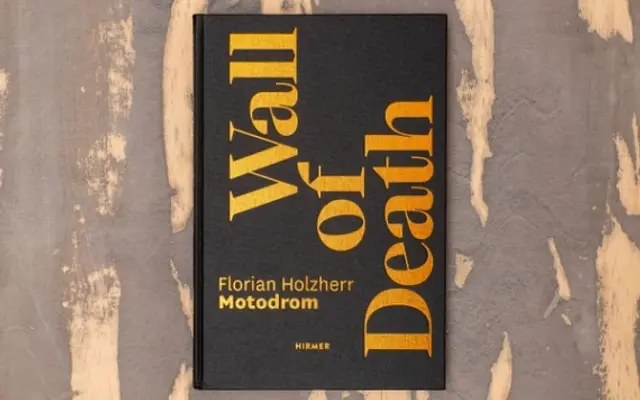
Bart Text
b•v-h type · André Baldinger & Toan Vu-Huu · 2022
A contemporary serif combining Oldstyle, Transitional and Neoclassical influences, designed originally for the visual identity of the Opéra National du Rhin in Strasbourg.
Designed in 2019 and released in 2022 by André Baldinger and Toan Vu-Huu, Bart Text is the text-optimised cut of a three-contrast family also available in Normal and Display variants. Distinguishing details include right-angled cuts on drops and terminals, square dots, wire elements and a strong stroke contrast that keeps the typeface formal yet contemporary. The Text subfamily runs across four weights from Regular to Heavy, each with a matching italic, and the glyph set of 839 characters covers an extensive range of Latin-based languages.
The designers describe the family as combining Oldstyle, Transitional and Neoclassical elements, with higher stroke contrast, right-angled terminals and square dots that position it in a contemporary interpretation of the transitional genre.